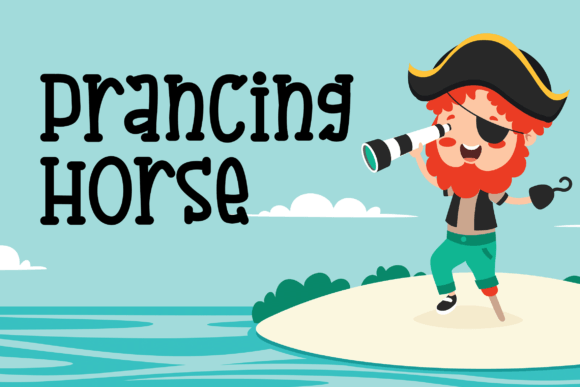
Embrace the joy and whimsy of childhood with Prancing Horse – Kids Font, a delightful serif font that perfectly captures the vibrant spirit of little ones eager to explore the world. Step into a realm of imagination and adventure, where Prancing Horse dances across pages and screens, bringing stories to life with its playful charm.
Let your words take flight, carried by the graceful curves and energetic strokes of Prancing Horse. This font is a true storyteller, adding a touch of magic to your adventure children's books, online games, and teens event posters. It's the perfect choice for school supplies, posters, and movie titles, where its youthful exuberance shines through.
With Prancing Horse, social media becomes a canvas for your creativity. Design eye-catching YouTube covers and thumbnails that pop, and craft captivating social media page covers that radiate personality. Prancing Horse breathes life into your online presence, making your content stand out from the crowd.
Whether you're creating marketing materials, designing websites, or simply expressing yourself through art, Prancing Horse is your trusted companion. Its versatility knows no bounds, adding a touch of wonder to everything it touches. Unleash your imagination and let Prancing Horse guide you on a journey of endless creative possibilities.